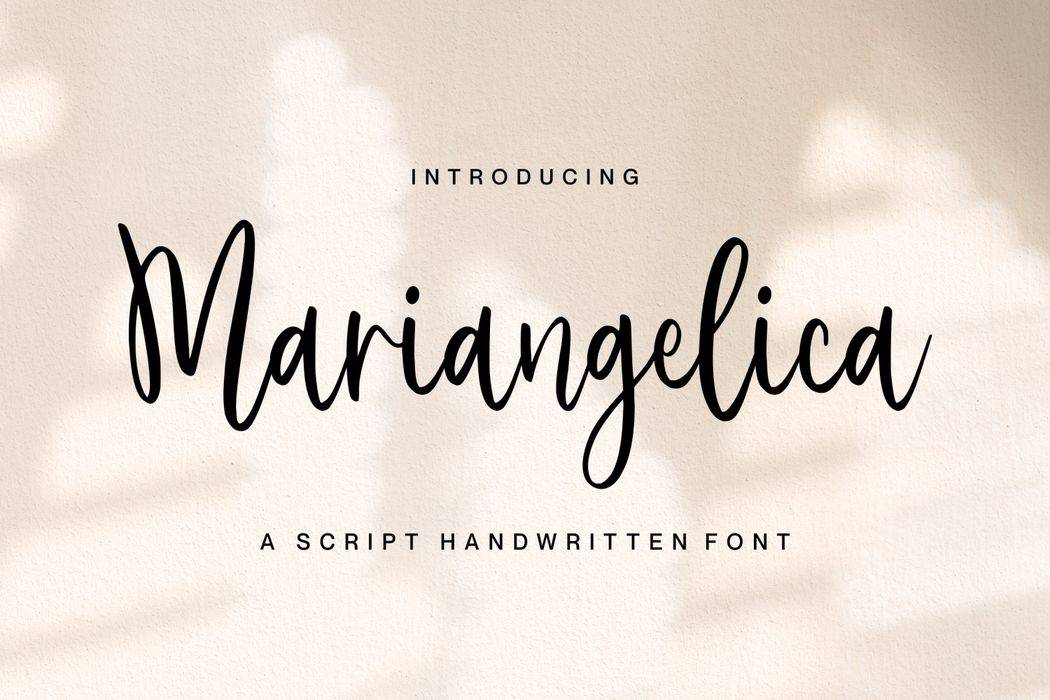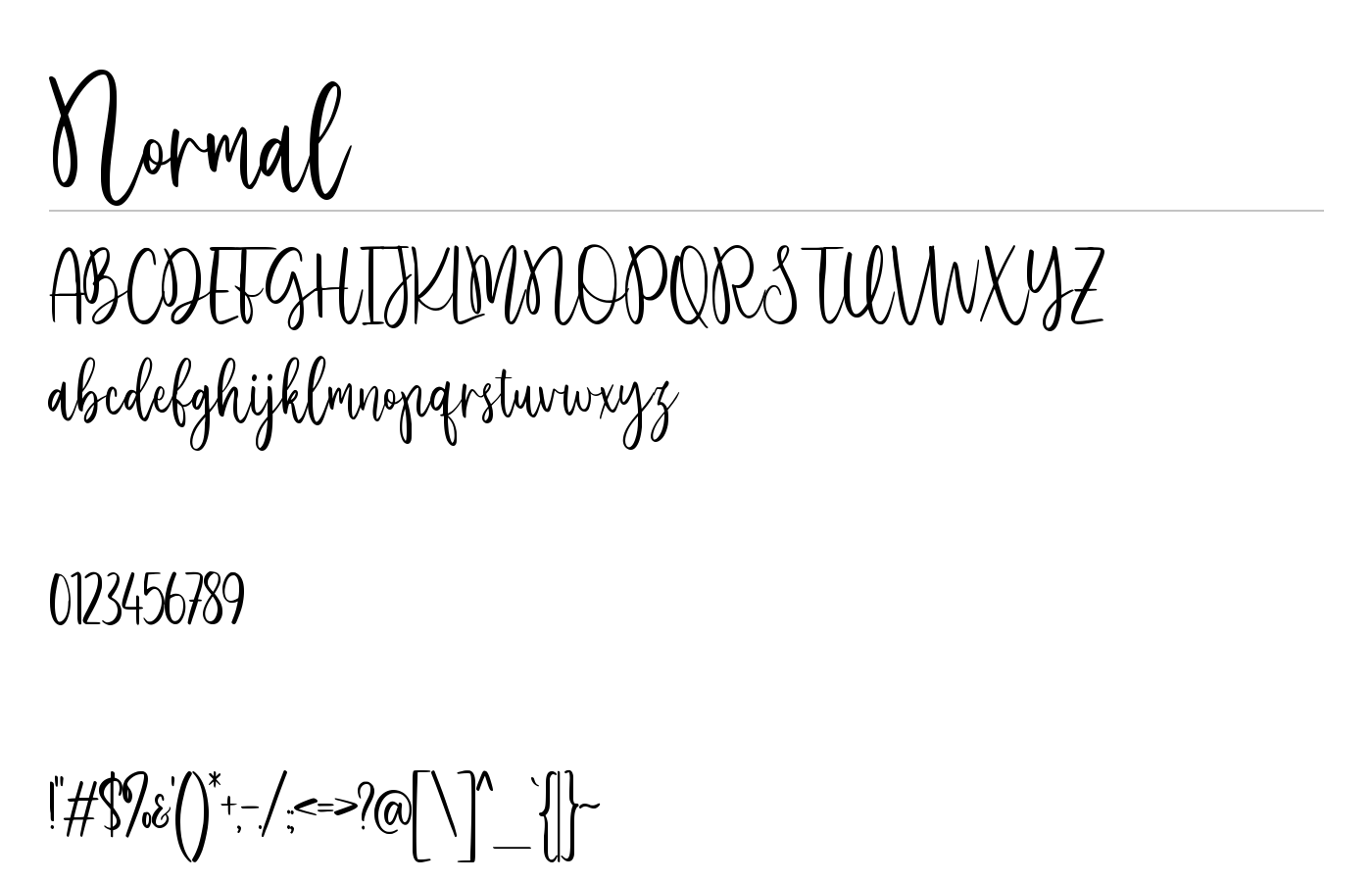
Mariangelica is a playful and elegant handwritten script font featuring tall, narrow letterforms with a delicate and casual style. Its flowing strokes and slightly irregular shapes give it a charming, personal touch, making it perfect for creative projects, invitations, branding, and designs that want to convey friendliness and warmth. This font works well for headline use and decorative text where a unique, approachable look is desired.
Mariangelica Font
About Mariangelica Font